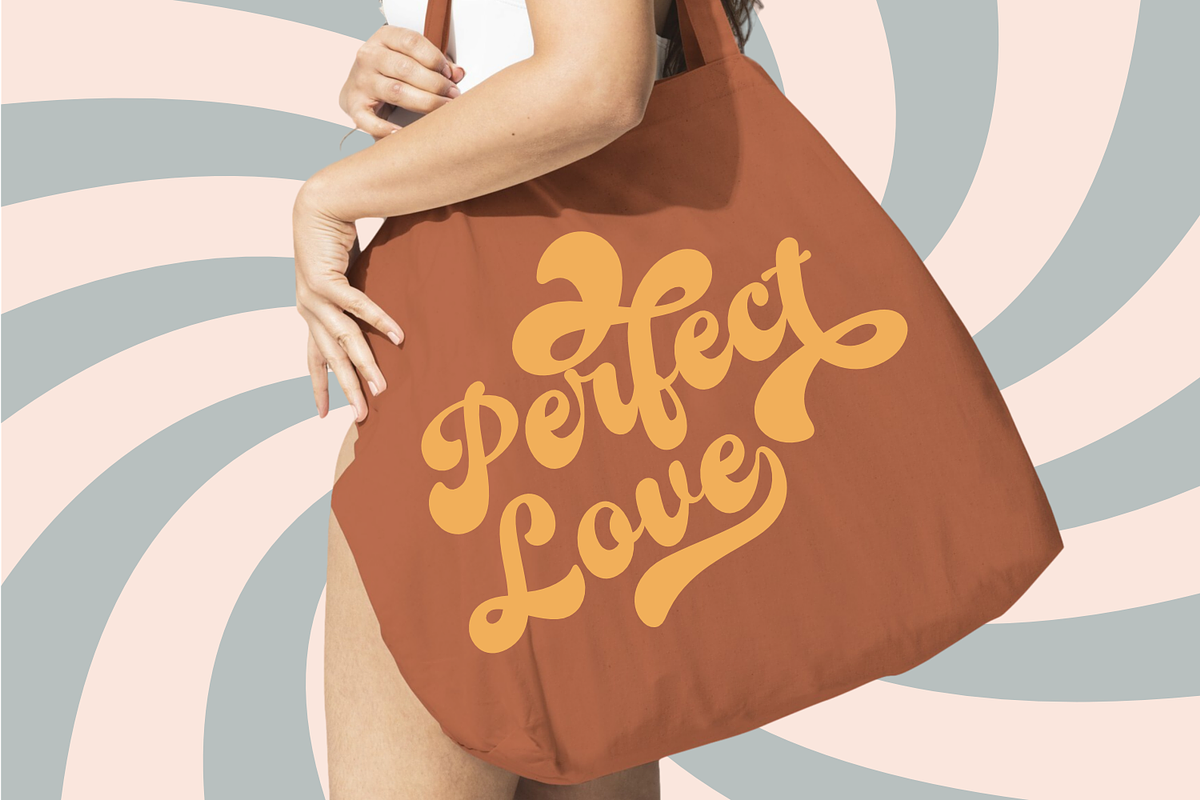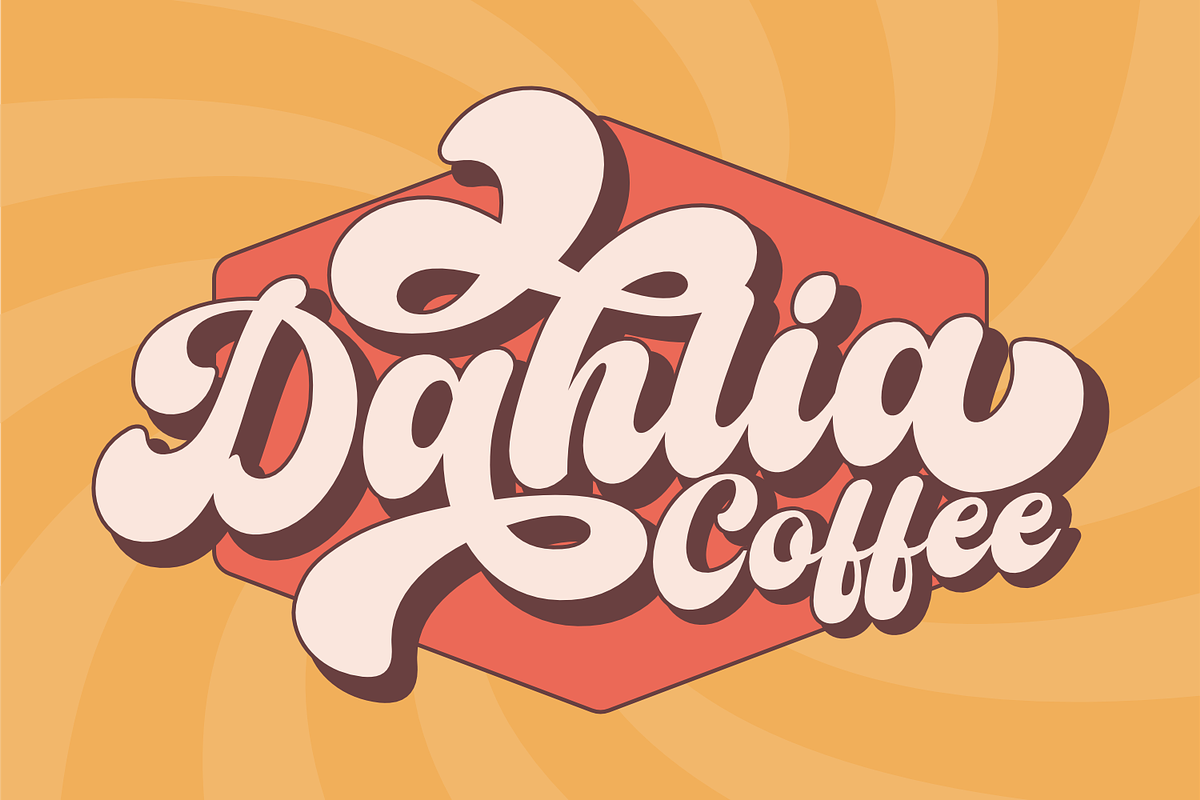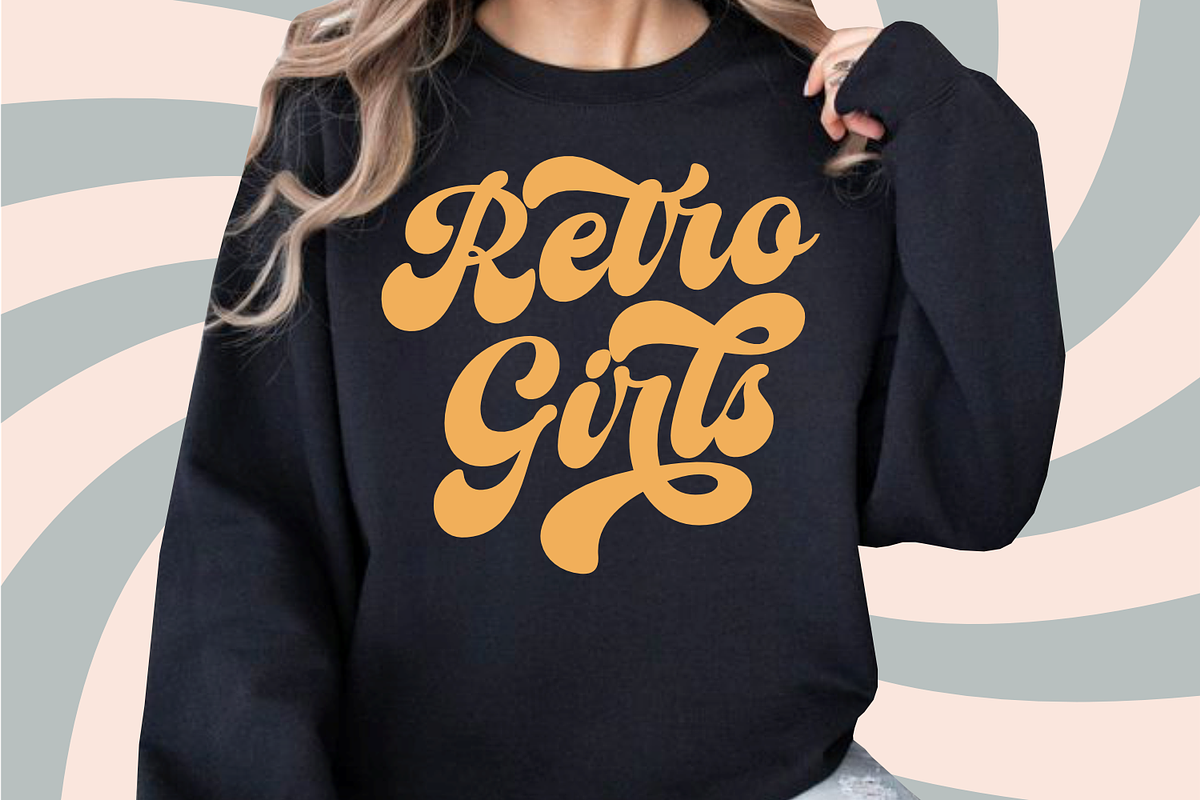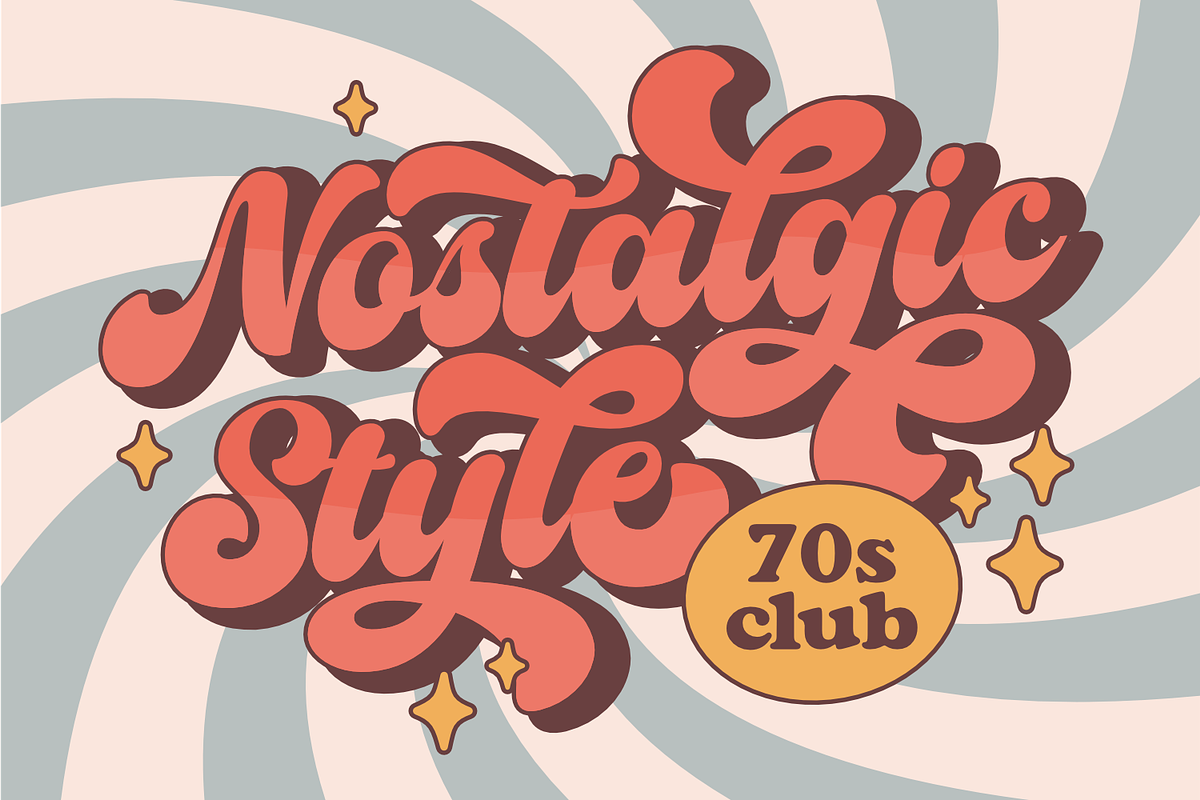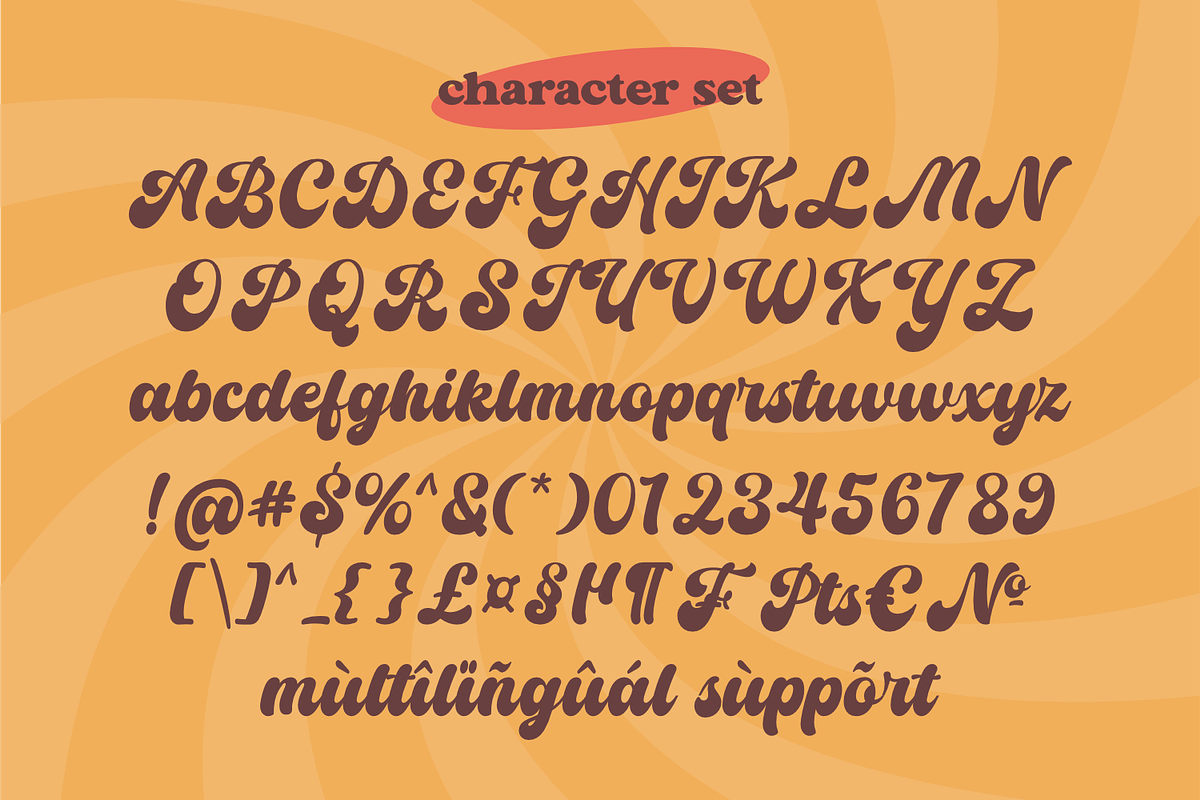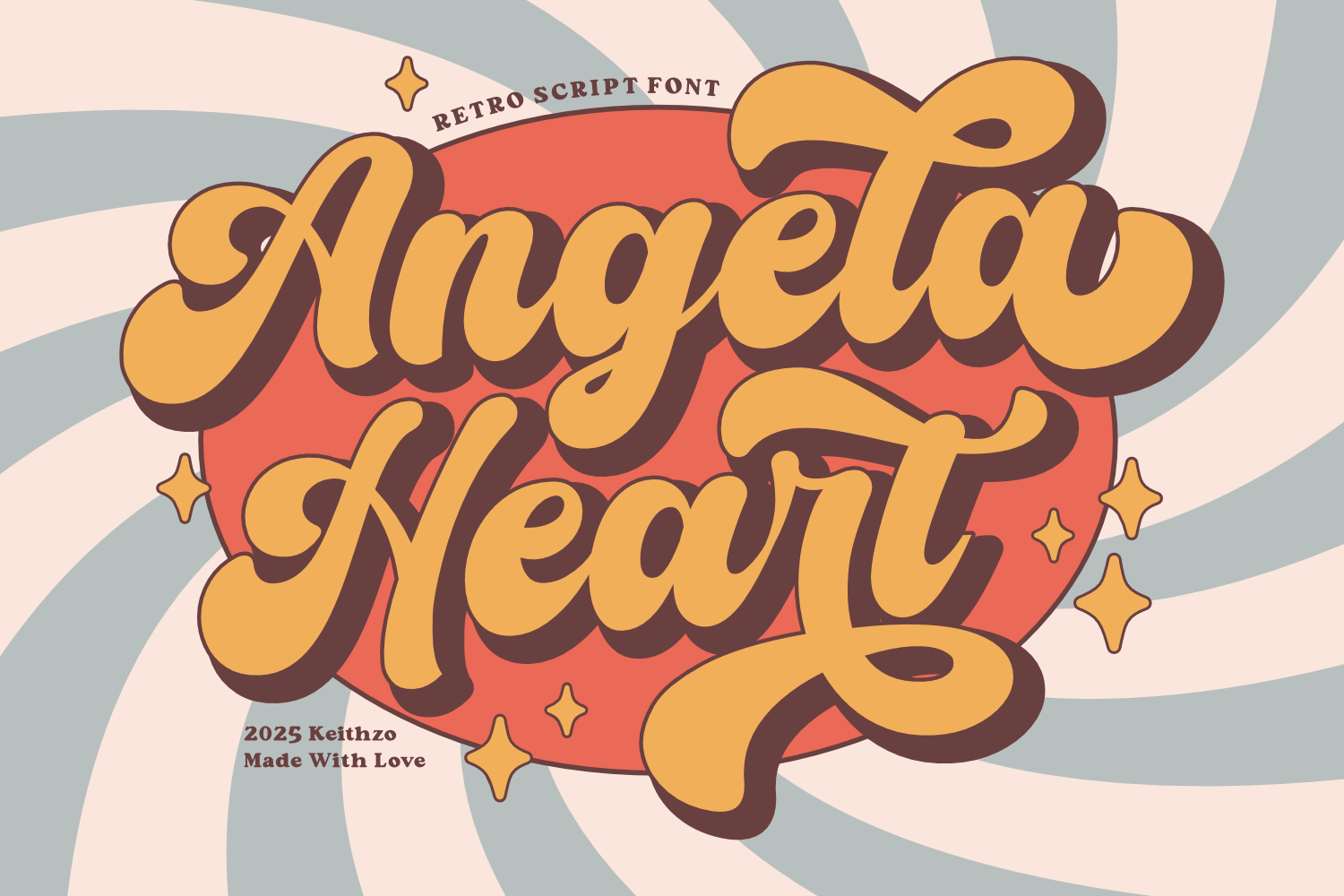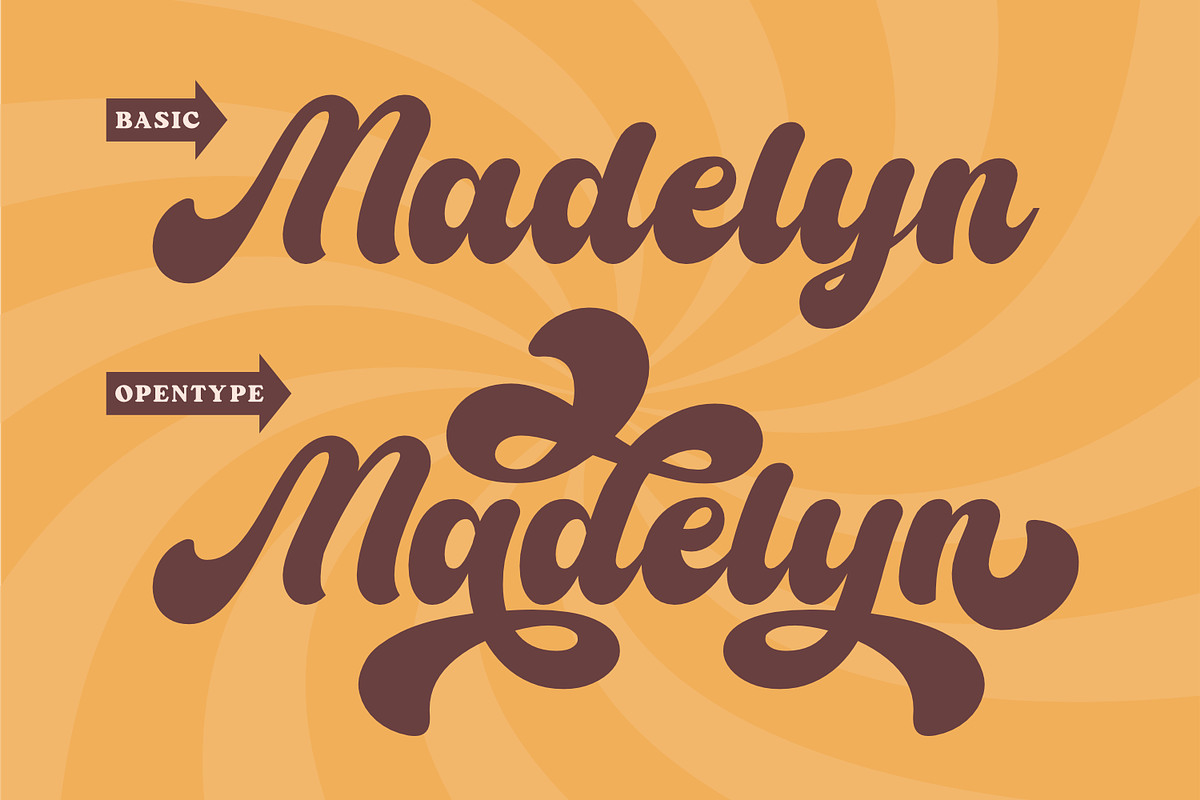
Angela Heart - Retro Script Font
Angela Heart captivates with a groovy retro script font that boasts fluidity and expressiveness. Its unique flourishes, whimsical features, and stylistic elements infuse a lively and energetic aura. This font is a nostalgic nod to vintage vibes and perfectly complements retro-inspired designs, logo styling, t-shirts, and retro posters. For those creative works longing for a lighthearted, vibrant atmosphere, Angela Heart is an undeniable match. It punctuates any piece with a touch of whimsy, soaking each letter with personality, while embodying the unapologetic boldness of its reminiscent era.